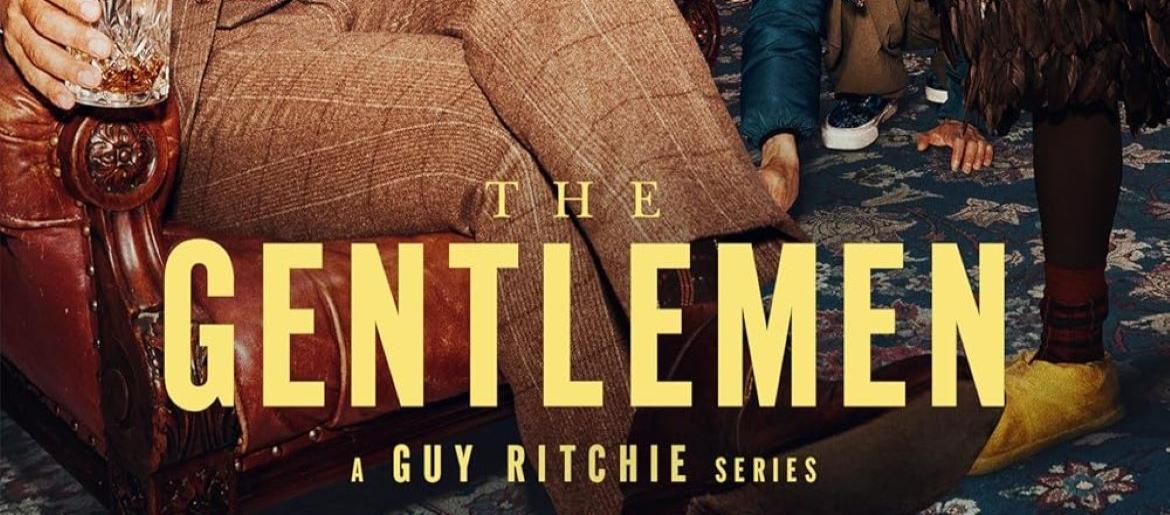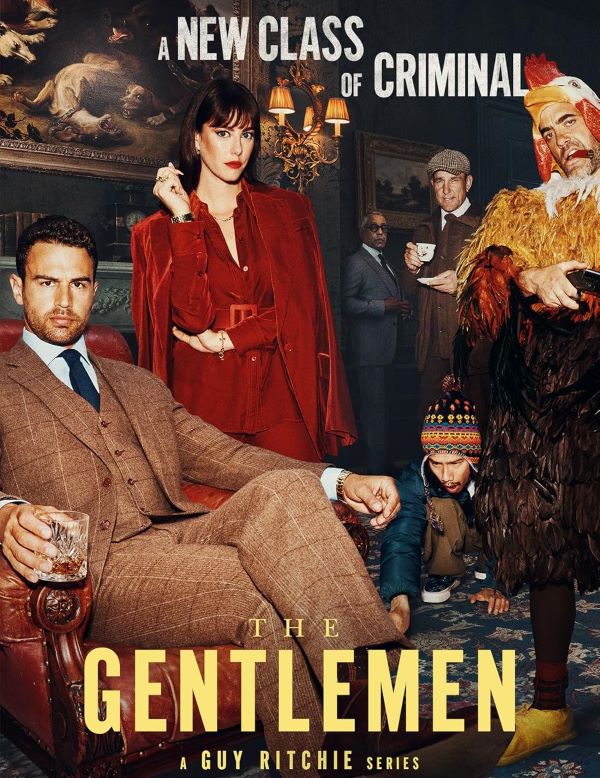
The Gentlemen Font
What Font is The Gentlemen?
The Gentlemen Font used in the series title is CG Gothic No1, a refined and modern sans-serif typeface that embodies the show’s stylish, sharp-edged tone. With its sleek letterforms and confident geometry, the font perfectly mirrors the sophistication and cunning of the elite world the story unfolds in. It conveys a mix of elegance and danger — a visual reflection of the series’ high-stakes drama and dark humor.
About The Gentlemen
The Gentlemen (2024) is a British crime-comedy television series created by Guy Ritchie, based on his 2019 film of the same name. The show stars Theo James, Kaya Scodelario, Daniel Ings, and Ray Winstone. It follows Eddie Horniman, a young aristocrat who unexpectedly inherits his family’s massive estate — only to discover it’s part of a secret cannabis empire. Caught between privilege and peril, Eddie must navigate a world of criminals, con artists, and questionable alliances. Blending luxury, wit, and chaos, The Gentlemen delivers the signature Guy Ritchie style with a fresh and episodic twist.